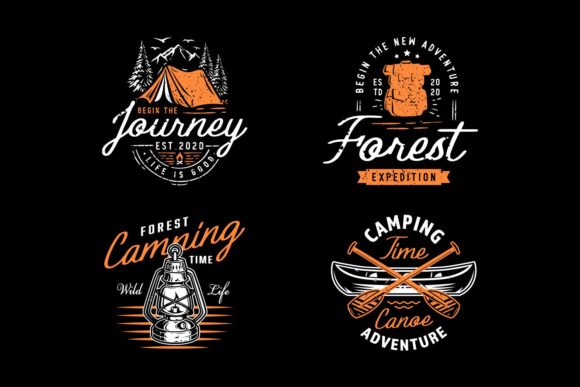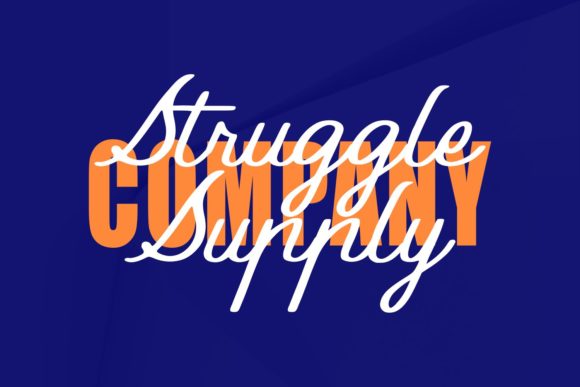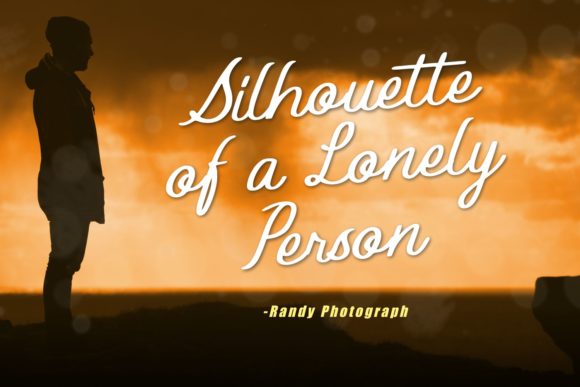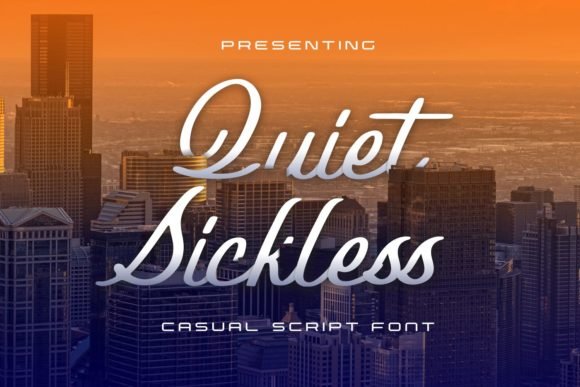
Introduction to Quiet Sickless Font
Quiet Sickless is a stylish and delicate font.
It has a clean, thin and smooth vibe and it will be a hit for any design that you want to add it to .
Quiet Sickless Font offers exceptional quality and versatility, making it a valuable addition to your design toolkit. Whether you’re creating for personal projects or commercial use, Quiet Sickless Font delivers professional results.